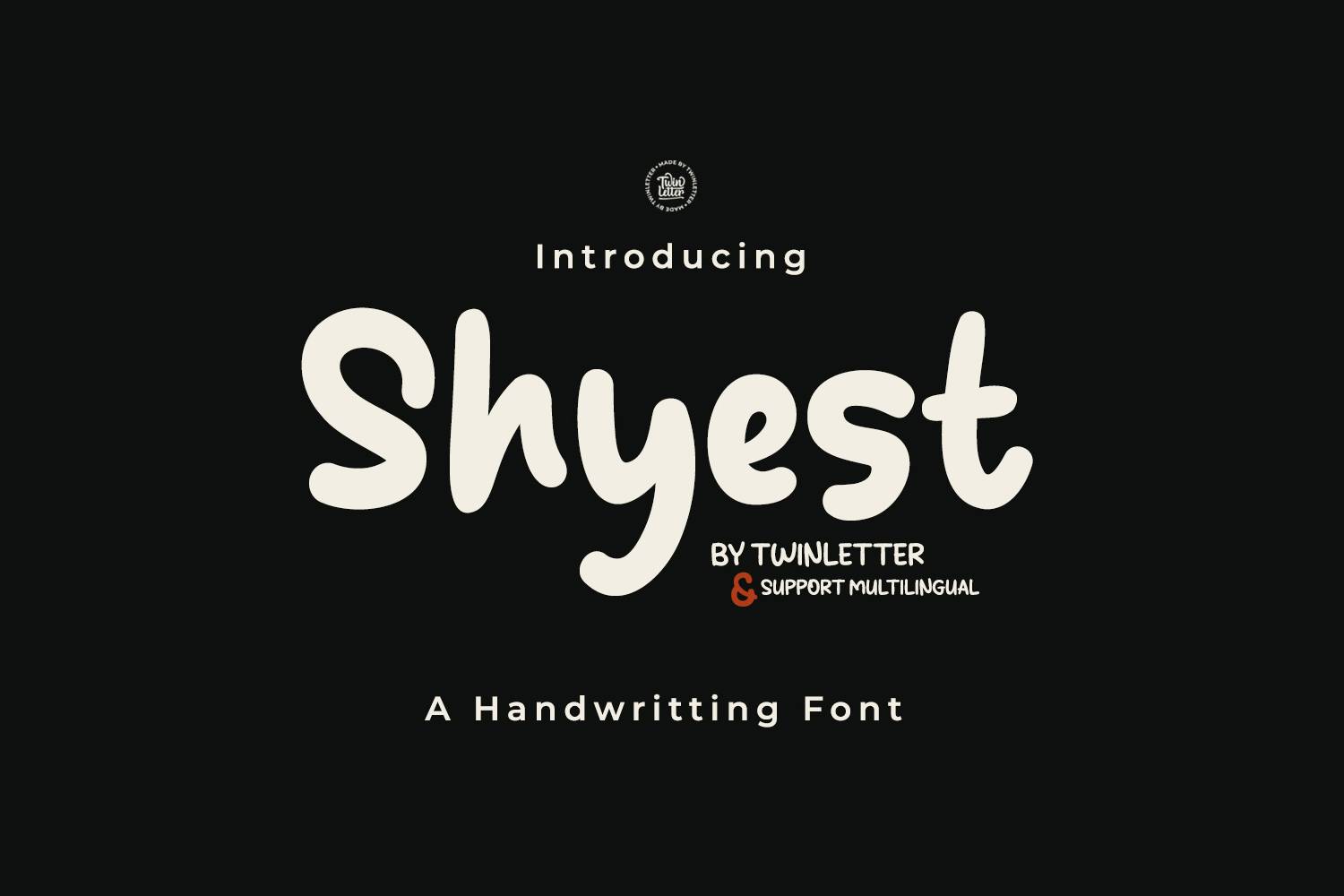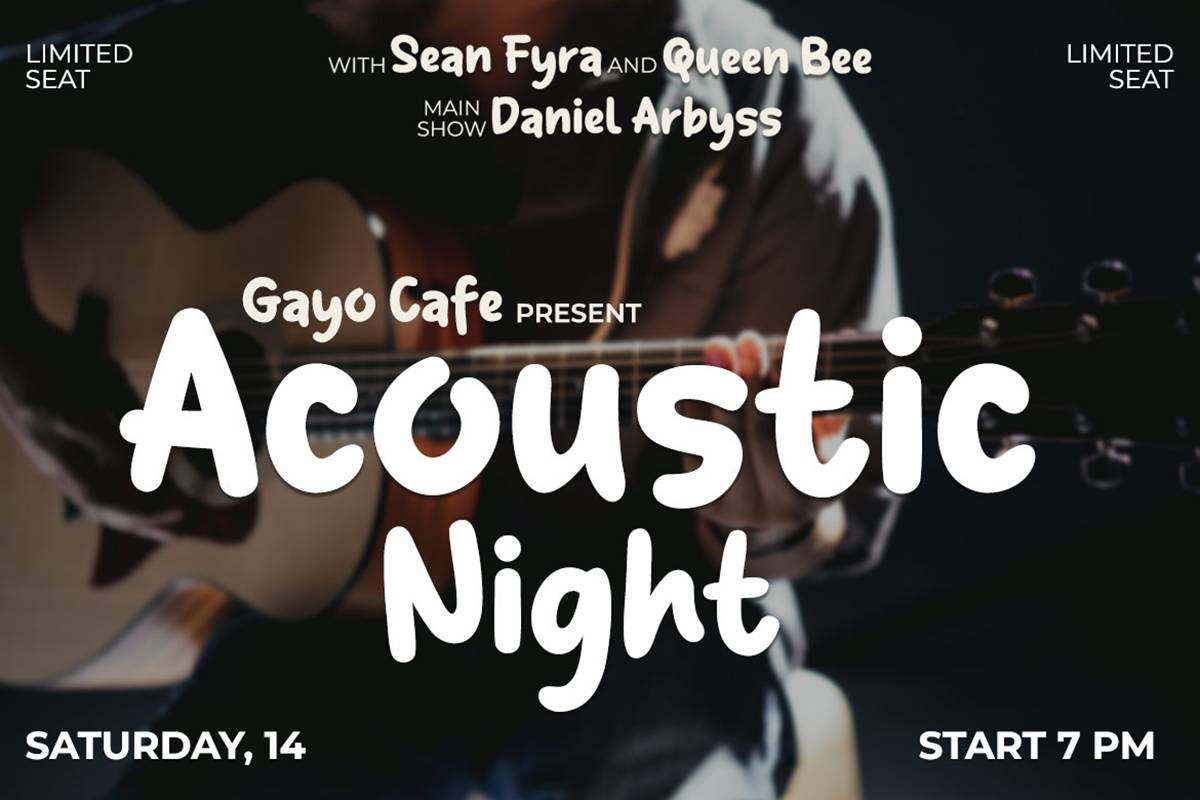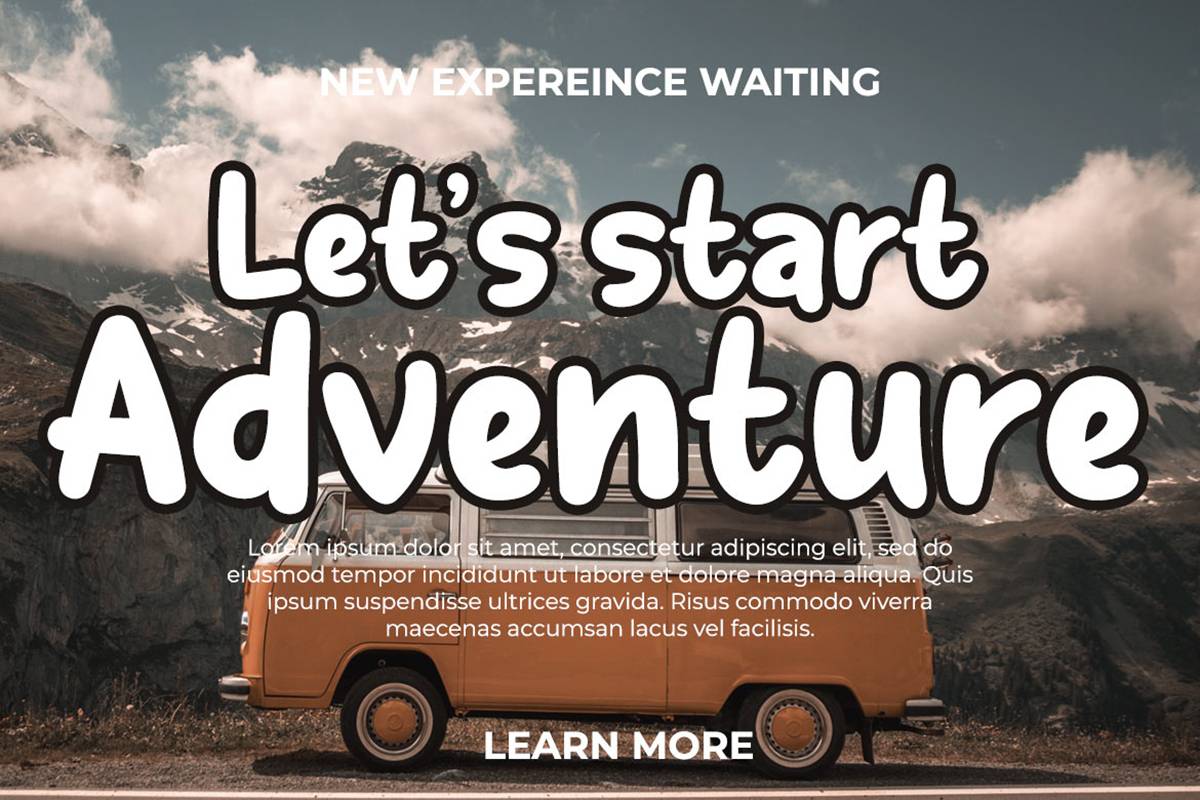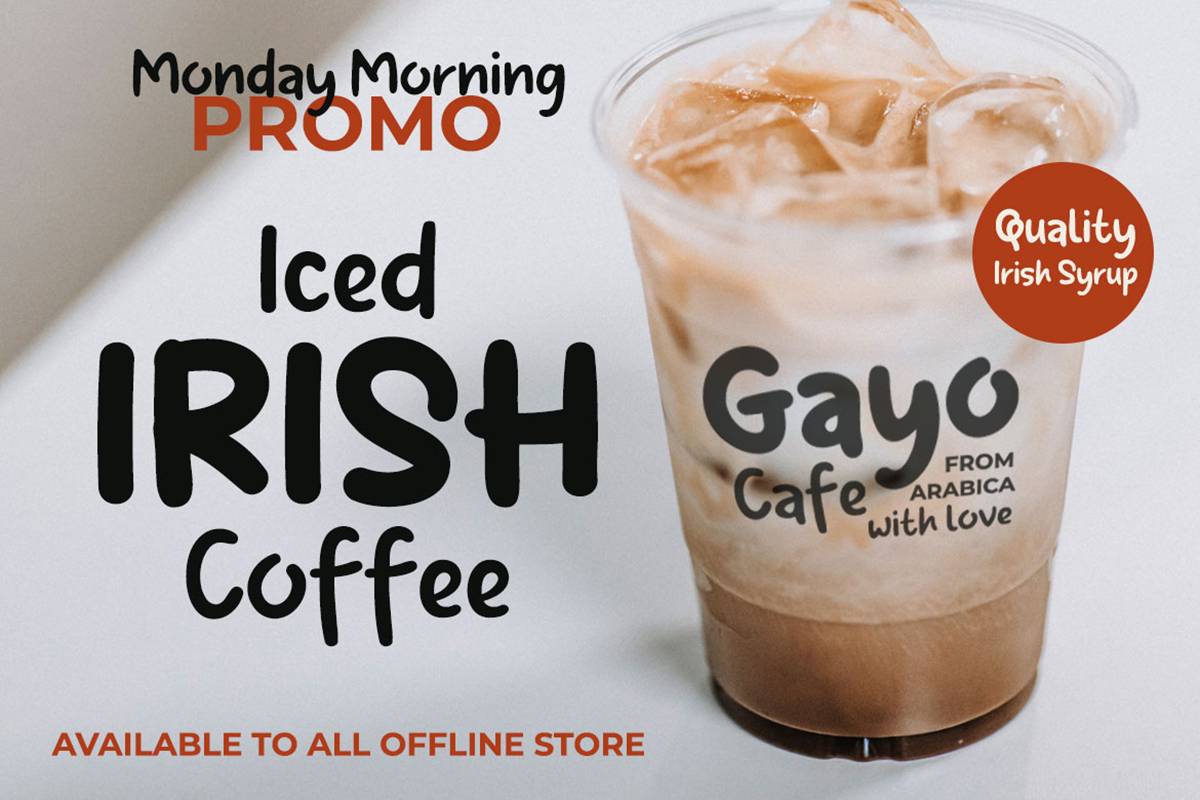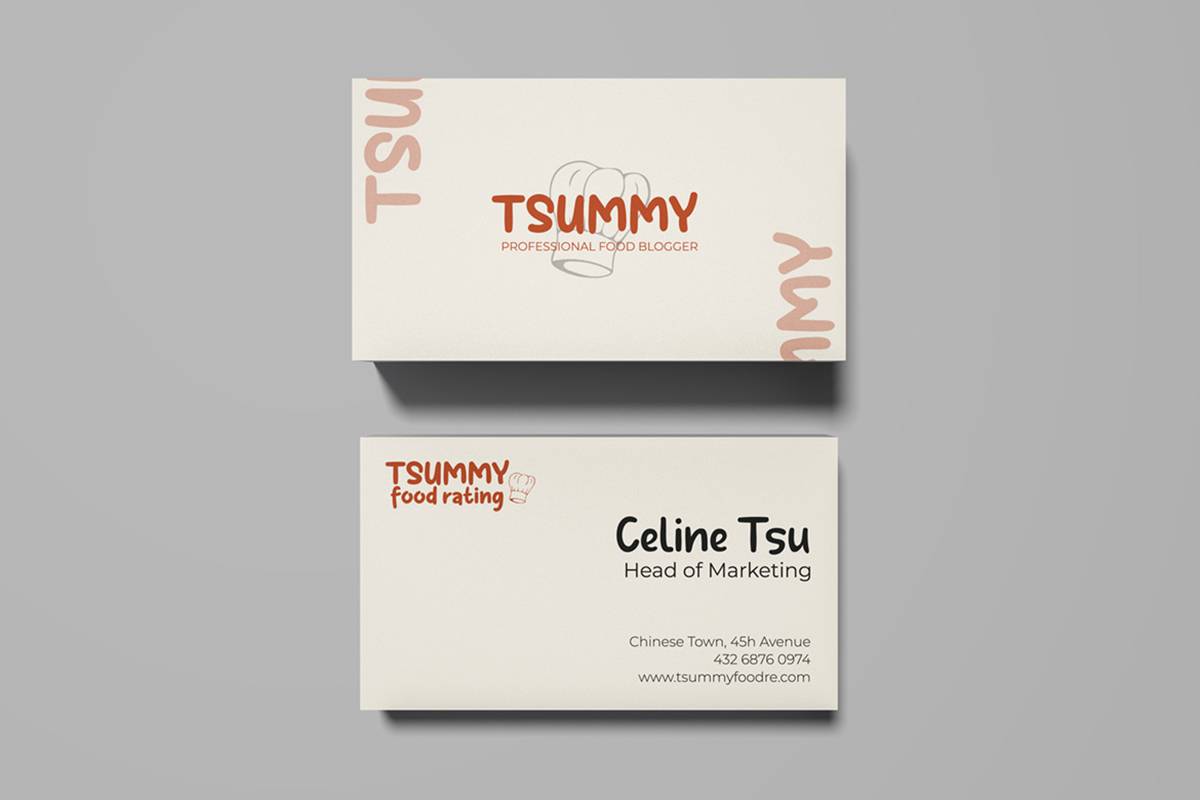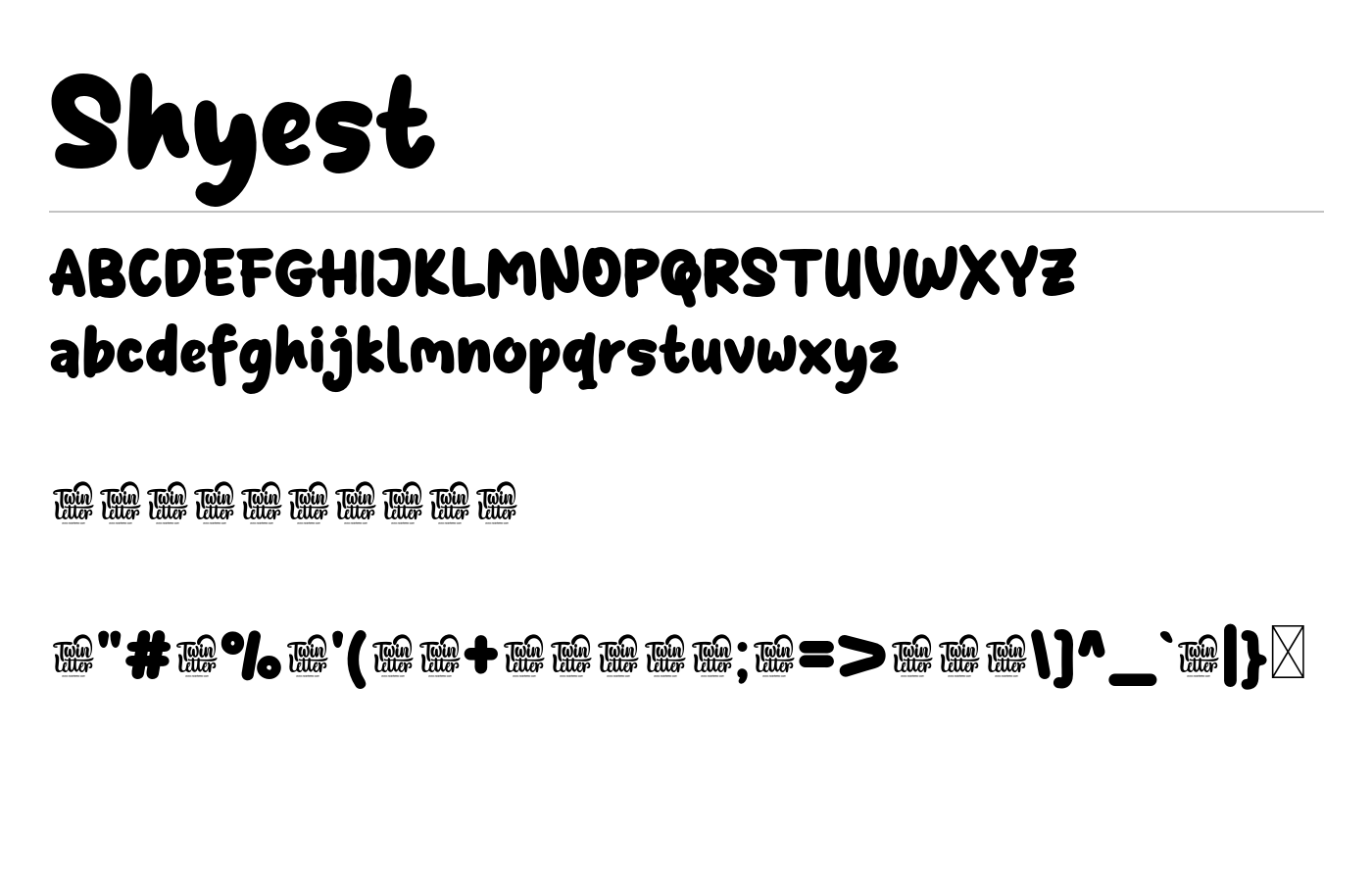
Shyest is a bold and playful sans serif font with thick, rounded strokes that give it a friendly and approachable feel. Its slightly irregular shapes and informal style make it ideal for fun, casual designs, perfect for branding, children’s products, or creative headlines where a warm and cheerful tone is desired. This font works best in display settings where personality and charm are key.
Shyest Font
About Shyest Font
| Font family | Shyest Font |